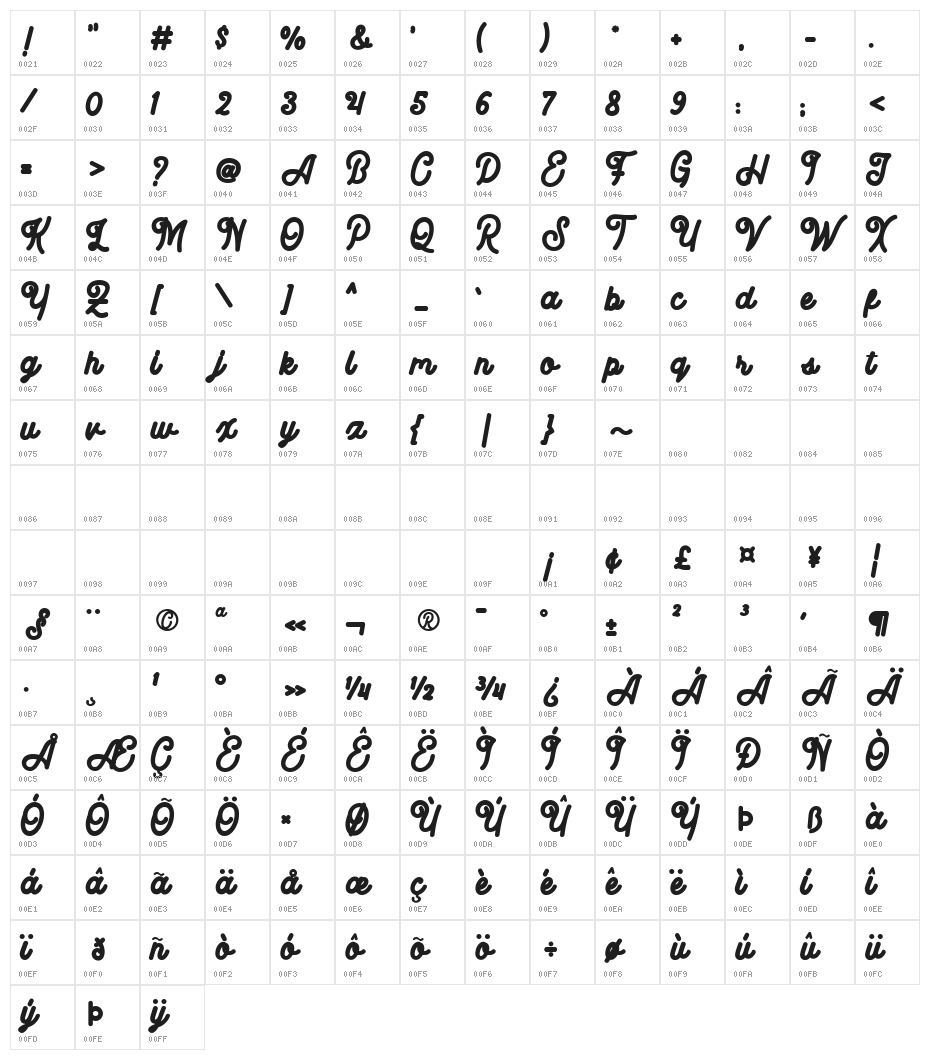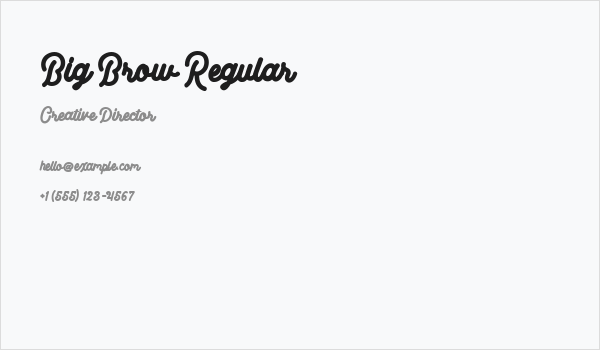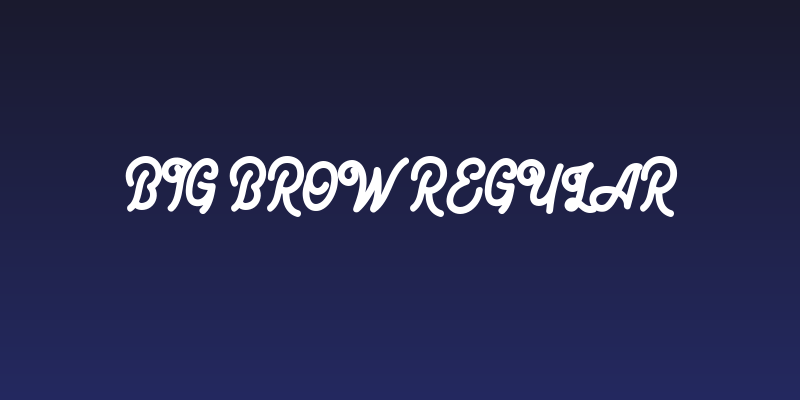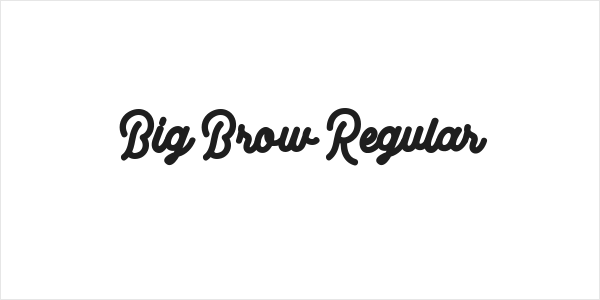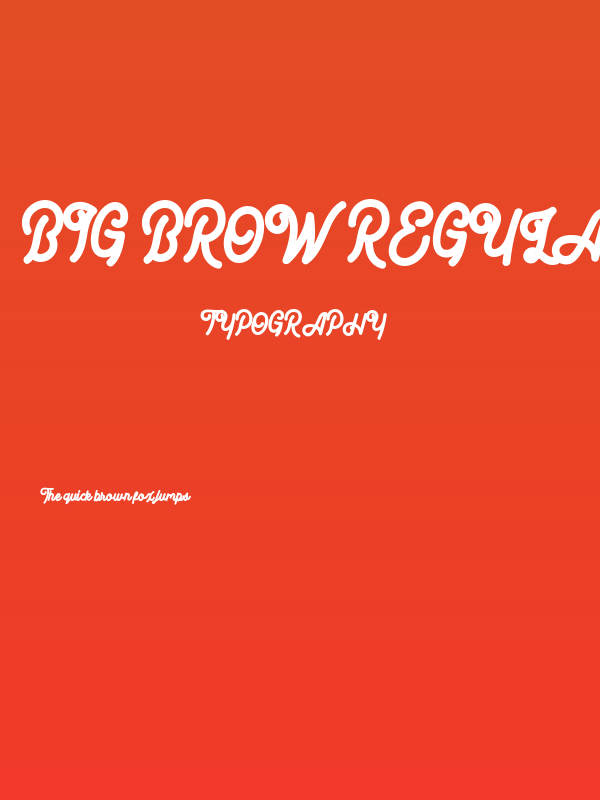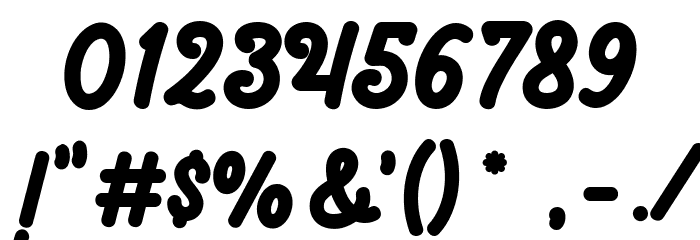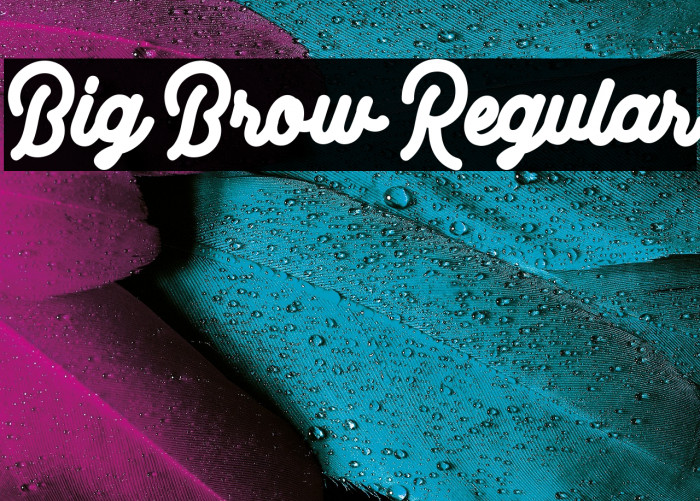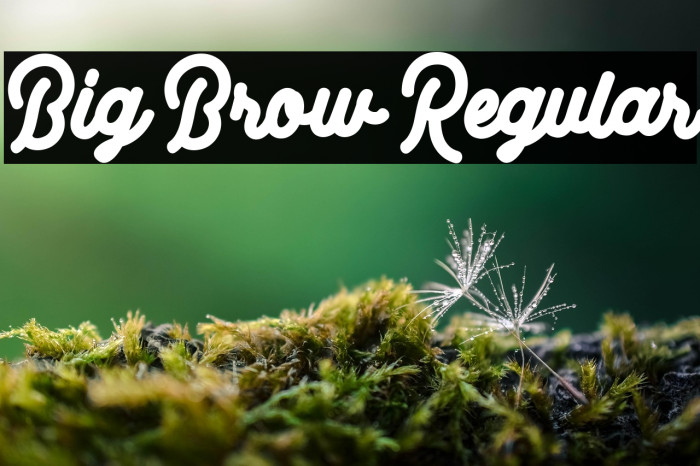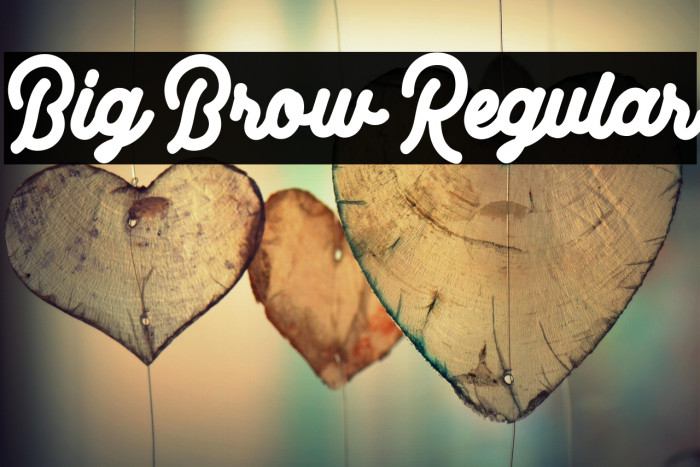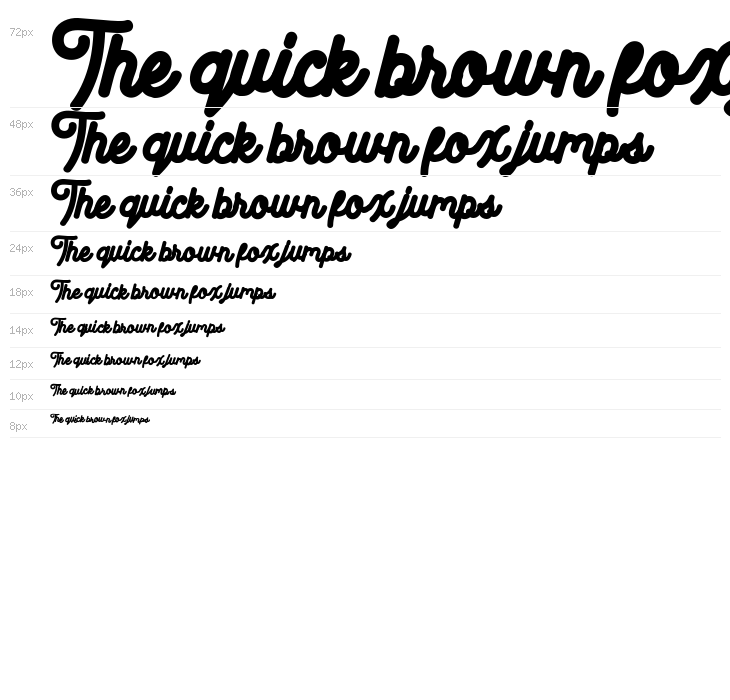
Big Brow Regular Font
Big Brow Regular Description
This font features a bold, cursive style with a playful and dynamic flow. The uppercase letters are characterized by their sweeping curves and consistent stroke weight, giving them a lively and energetic appearance. The lowercase letters maintain the same boldness, with smooth connections between characters that enhance the script-like quality. Numbers and special characters follow the same design principles, ensuring a cohesive look across all glyphs. The overall impression is one of bold expressiveness, making it suitable for projects that require a touch of personality and flair.
| Proposed Projects | Ideal for branding, logos, invitations, and any design needing a bold, expressive touch. |